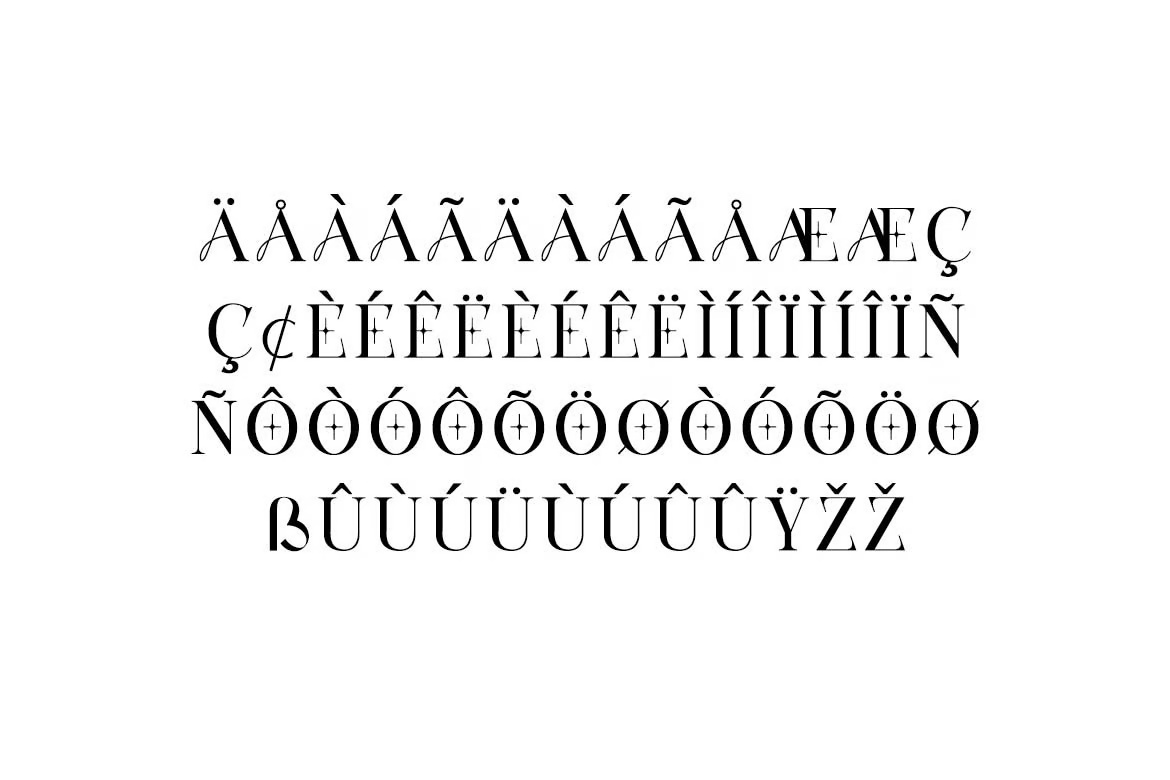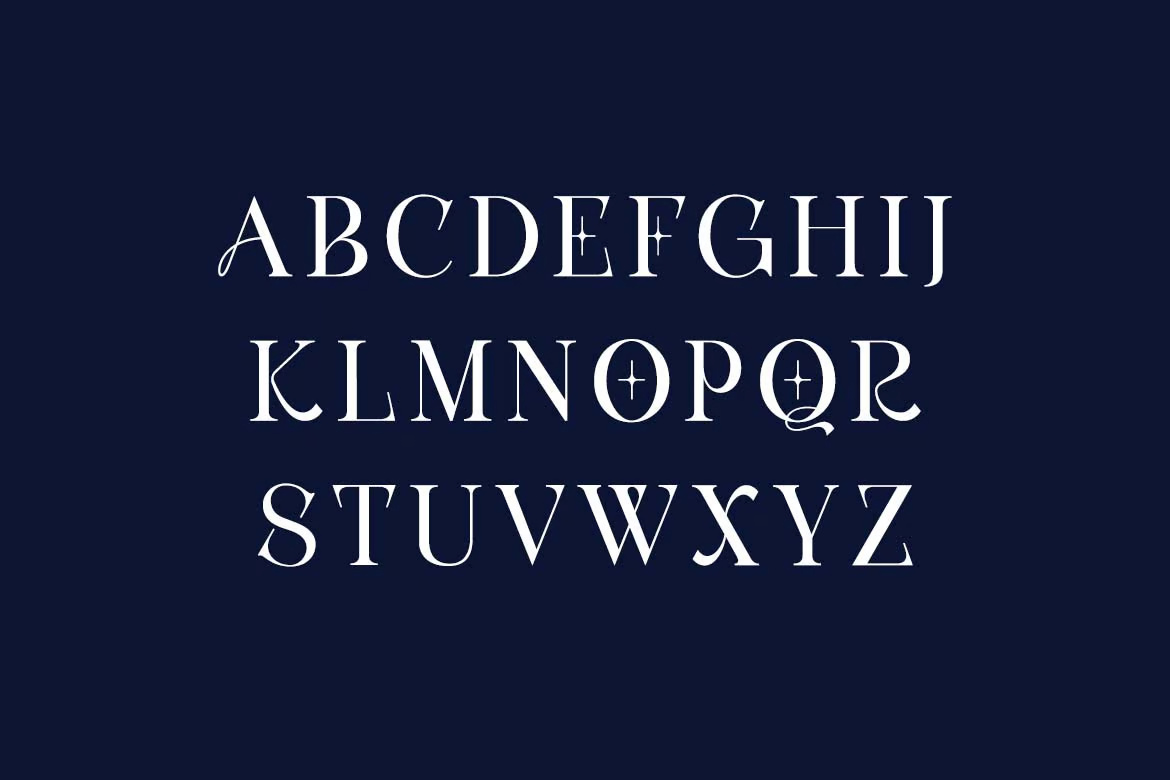
Crown Emperial Luxury Serif Font
Introducing Crown Emperial Luxury Serif Font—a beautifully classy, elegant, and modern typeface. Perfect for a wide range of projects, including signatures, stationery, logos, weddings, typography quotes, magazine and book covers, website headers, branding, packaging design, and more. This font also suits fashion-related branding and editorial designs, effortlessly balancing both masculine and feminine qualities.
Crown Emperial Luxury Elegant Serif Font
Crown Emperial Luxury Serif Font